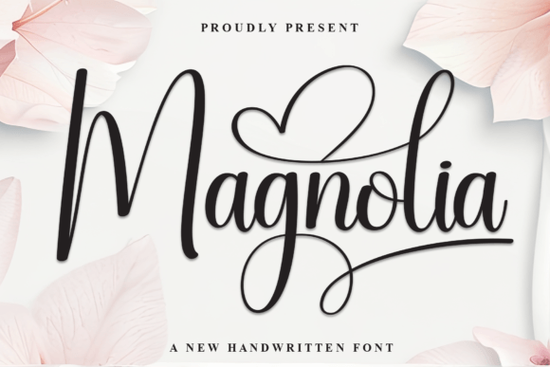
If you’ve been searching for a script font that feels personal, polished, and just a little bit luxurious, you might want to take a closer look at Magnolia Font. It’s designed to mimic elegant handwriting the kind you’d see on a high-end invitation or boutique packaging. Whether you’re designing wedding stationery, branding a small business, or creating printables for Etsy, this font adds warmth without losing sophistication.
What makes Magnolia stand out is how naturally it flows. The letterforms connect in a way that feels organic, not forced like someone actually wrote it with care. That’s something you don’t always get with digital script fonts. If you’ve tried Brush Handmade or Daddy Heart before and liked their casual charm, Magnolia offers a more refined cousin to those styles.
Who is this font best for?
It works beautifully for anyone who needs to add a human touch to their designs but still wants them to feel upscale. Think:
- Wedding designers invitations, menus, place cards
- Small shop owners product labels, social media graphics, packaging
- Print-on-demand creators mugs, tote bags, journals with personalized quotes
- Crafters vinyl decals, embroidery patterns, greeting cards
It’s also surprisingly readable at medium to large sizes, which isn’t always true for fancy script fonts. You won’t have to worry about your message getting lost in swirls and loops.
How does it compare to other script fonts?
Magnolia sits somewhere between formal calligraphy and relaxed hand-lettering. It’s not as structured as Signature, which leans more corporate, nor as playful as Lovely Valentine Duo, which has a bouncy, romantic vibe. And while Garnesline gives off vintage charm, Magnolia feels timeless equally at home on a modern logo or a classic monogram.
If you’re pairing it with another font, try a clean sans-serif for contrast. Something simple lets Magnolia shine without competing for attention.
Any tips for getting the most out of it?
A few practical ideas:
- Use sparingly. One headline or accent word in Magnolia often has more impact than whole paragraphs.
- Adjust letter spacing slightly if your software allows it sometimes scripts benefit from a tiny bit more breathing room.
- Try it in all caps for a bold, editorial look surprisingly effective for logos or magazine-style layouts.
- Layer with textures think subtle paper grain or watercolor washes behind your text to enhance the handmade feel.
And if you’re making physical products (like stickers or engraved wood signs), test how the thin strokes print or cut. In some cases, you might need to thicken the lines slightly depending on your material or printer settings.
Where else could I use this besides paper and screens?
Think beyond the obvious. Magnolia looks gorgeous on:
- Embroidery patterns for towels or baby onesies
- Heat-transfer vinyl for custom apparel
- Laser-cut wood signs for home decor
- Chalkboard-style menu boards for cafes
- Wedding cake toppers or dessert tags
Because it’s so versatile, it’s one of those fonts you’ll find yourself coming back to again and again whether you’re whipping up a quick Instagram story or designing a full brand identity.